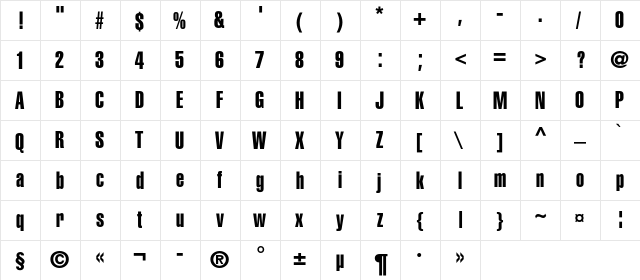
HeliosExtraCompressed Regular
Design Context for HeliosExtraCompressed Typeface
HeliosExtraCompressed offers clean, dependable letterforms without strong stylistic allegiance, making it a practical choice for designers who need flexibility.